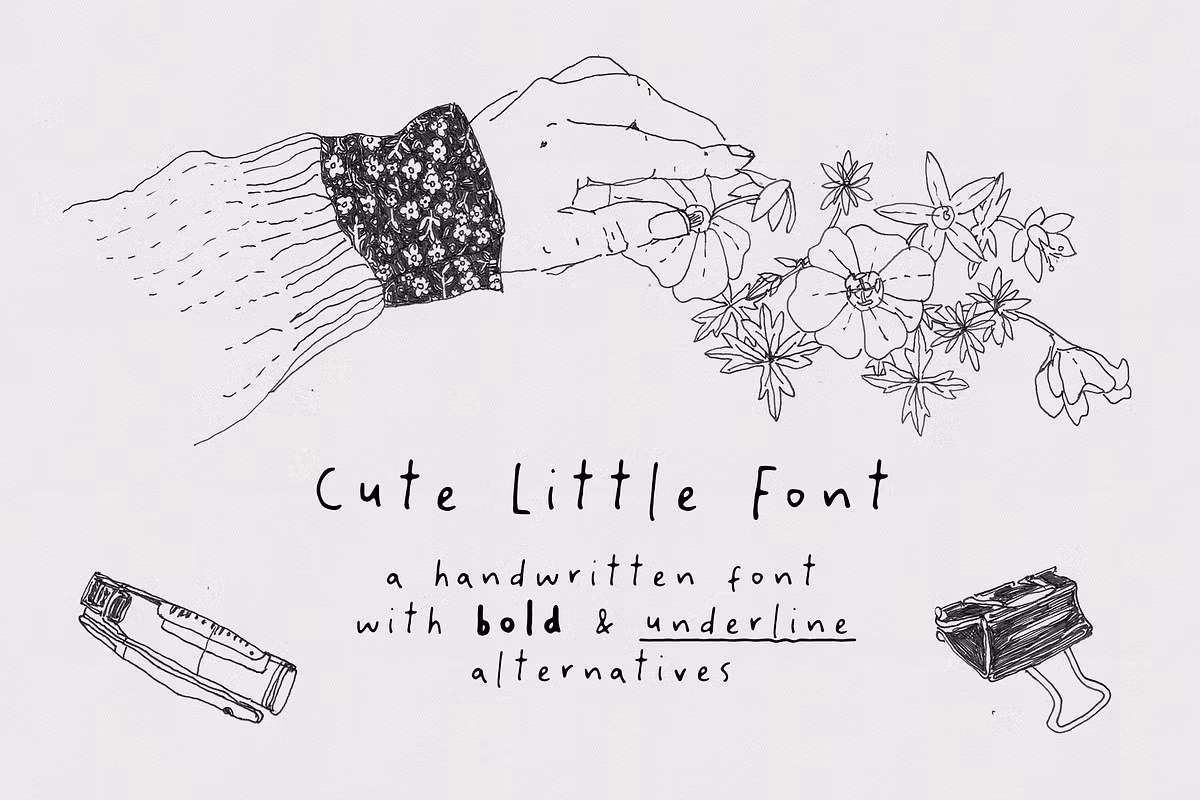
Cute Little Handwritten Font Free Download
Cute Little Handwritten Font Free Download is an adorable and whimsical typeface that captures the charm of natural, childlike handwriting. With its rounded strokes, uneven lines, and playful energy, this font is perfect for kids' projects, greeting cards, birthday invitations, product packaging, classroom materials, and any design that needs a sweet, handmade touch.
Designed to be approachable and fun, Cute Little Handwritten Font Free Download adds personality and warmth to both digital and print creations. It’s easy to read, making it ideal for both decorative titles and friendly messaging.